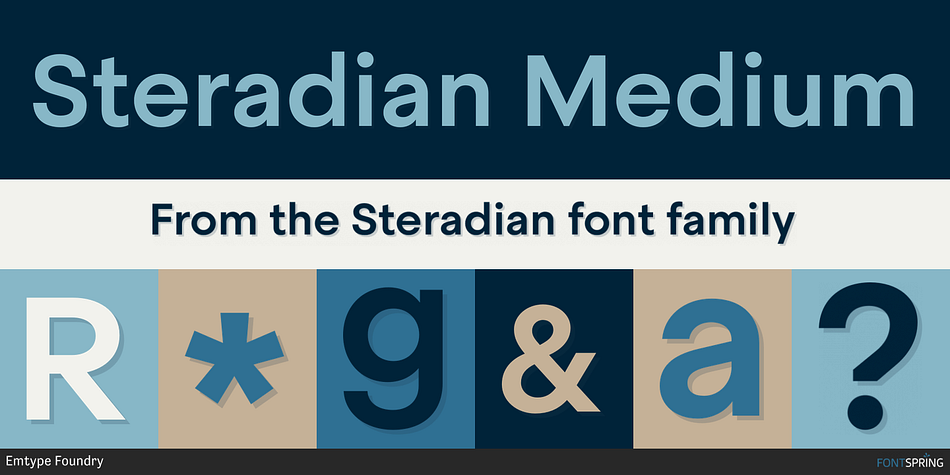
Steradian Medium
Designed by Eduardo Manso, Steradian is a sans serif font family. This typeface has sixteen styles and was published by Emtype Foundry.
Steradian is an exploration of the geometric genre. Although it has a geometric base, the widths between letters are not much different across the weights, something common of the style. That is due to the process, in which the proportions of the heavier weights paved the way for the lighter ones. Steradian also has a series of details that make it stand out and give it a special touch. Some of its main features are the double-story ‘a’, its closed apertures and some of the capitals have a distinct personality (such as the G and Q). Read more about the design process at the Emtype’s Blog.